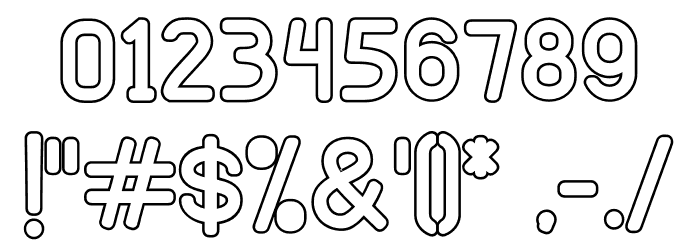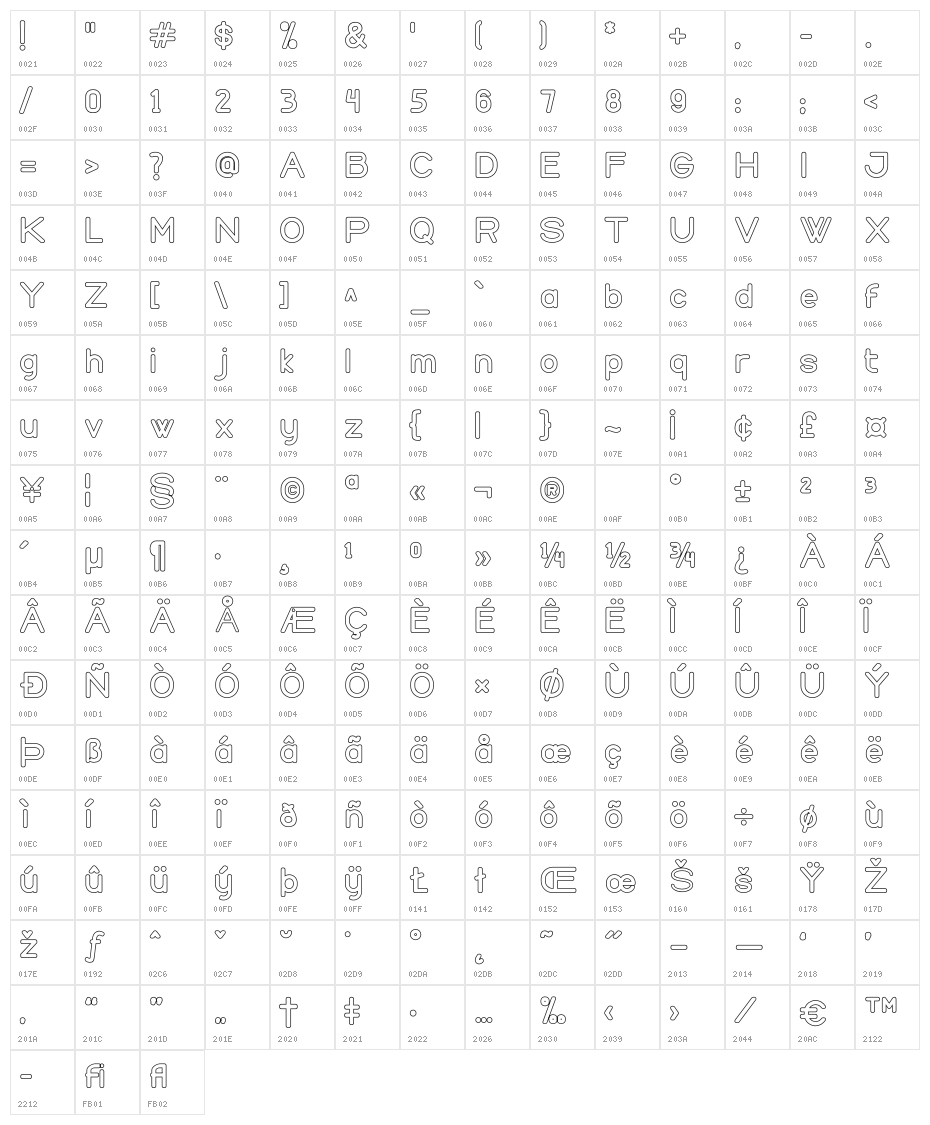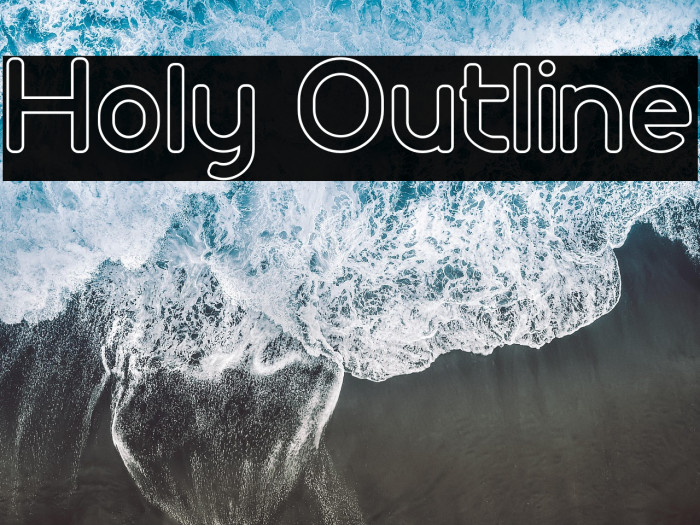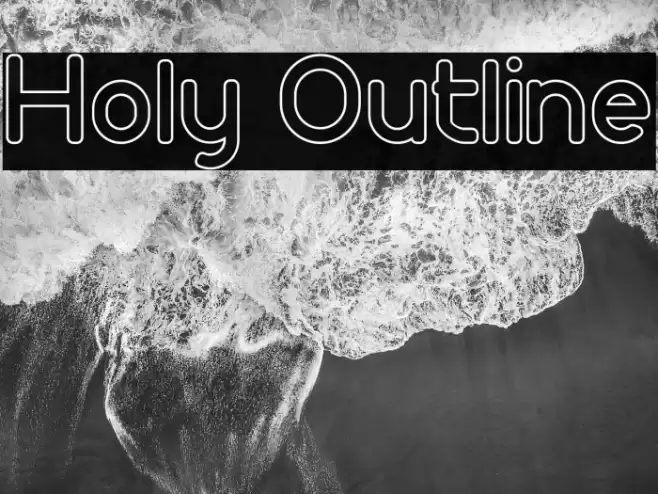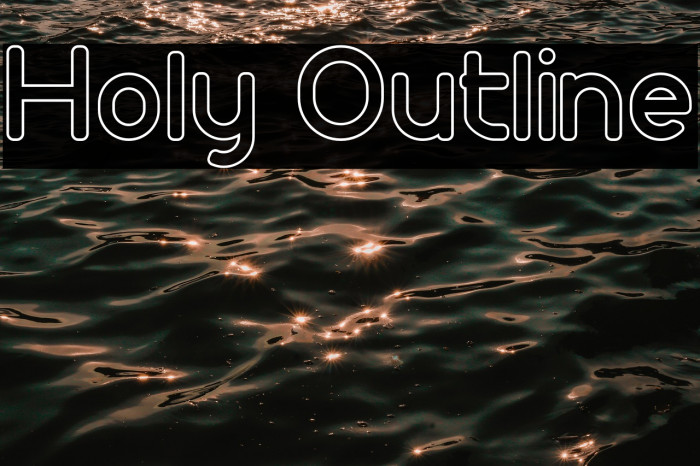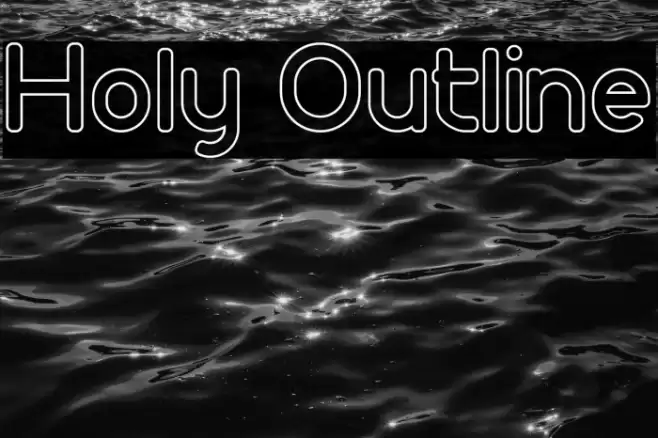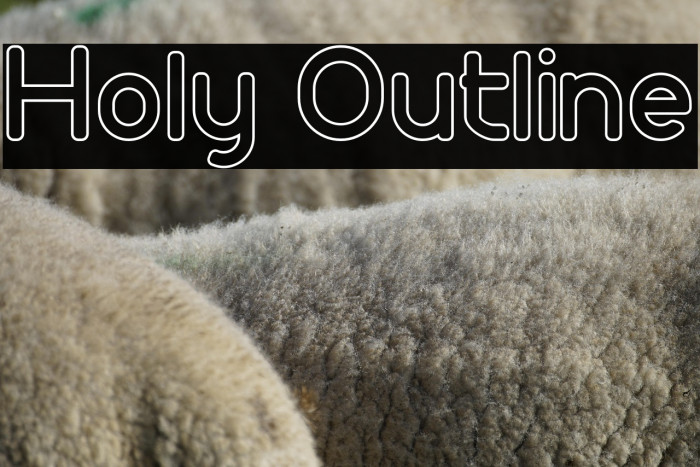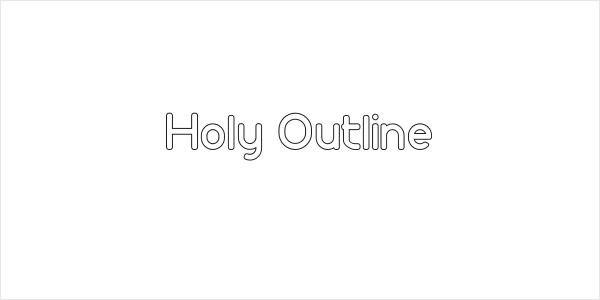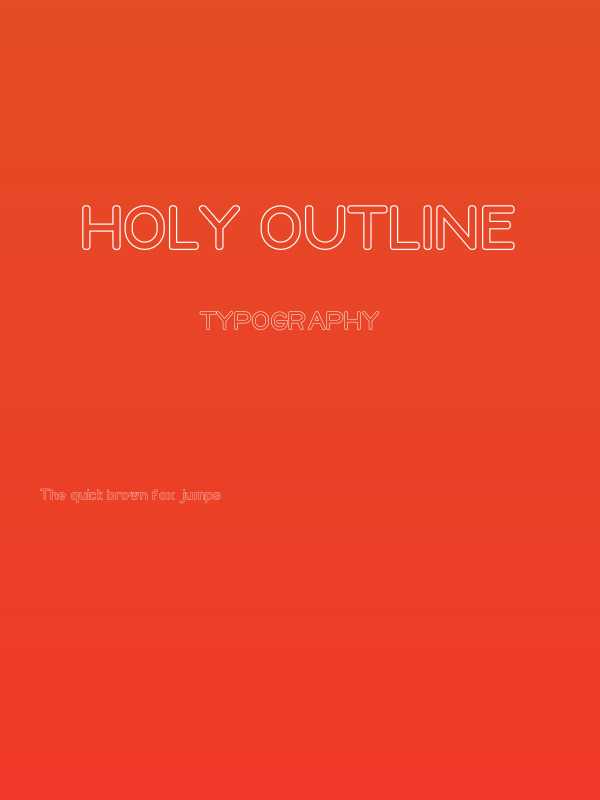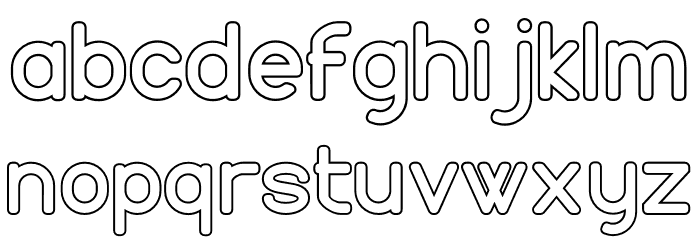
Holy Outline Font
Holy Outline Description
This font features a clean and modern outline style, characterized by its hollow interior and consistent stroke width. The uppercase and lowercase letters maintain a uniformity that enhances readability while providing a contemporary aesthetic. The numerals and special characters are designed with the same outline effect, ensuring a cohesive look across all text elements. The font's geometric shapes and rounded edges contribute to its approachable and friendly appearance, making it suitable for a variety of design applications. Its simplicity and clarity make it ideal for projects that require a modern and minimalistic touch.
| Proposed Projects | Ideal for branding, posters, headlines, and digital media where a modern and clean look is desired. |